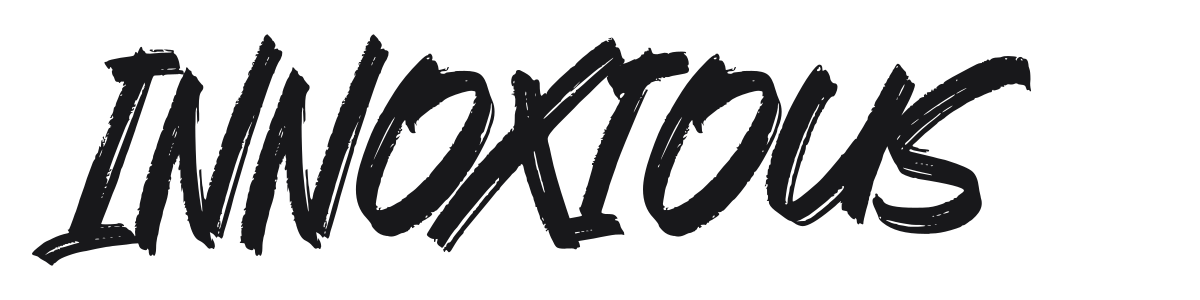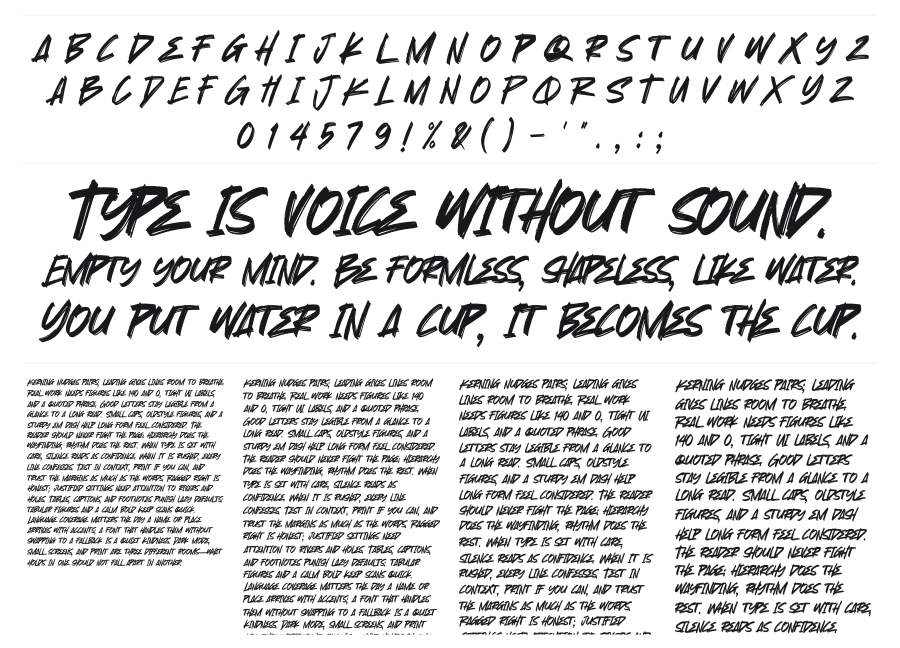
Innoxious
Innoxious is a bold, rough-edged brush script with a fierce forward lean and raw, hand-dragged strokes. The frayed terminals and heavy weight give it a street-art intensity that works well for music branding, apparel, and poster work. It reads fast and loud.